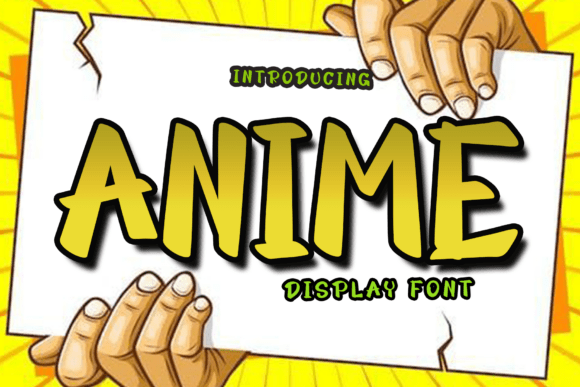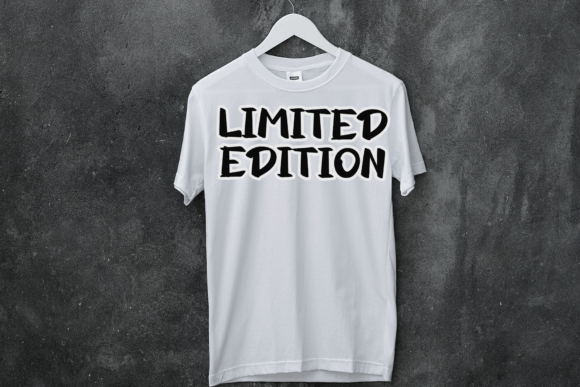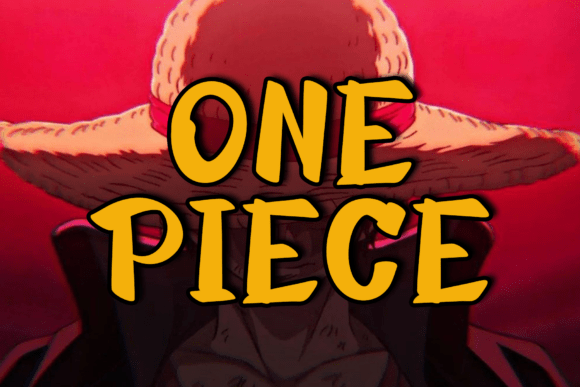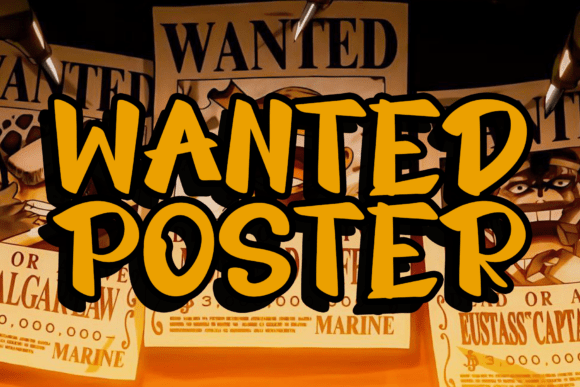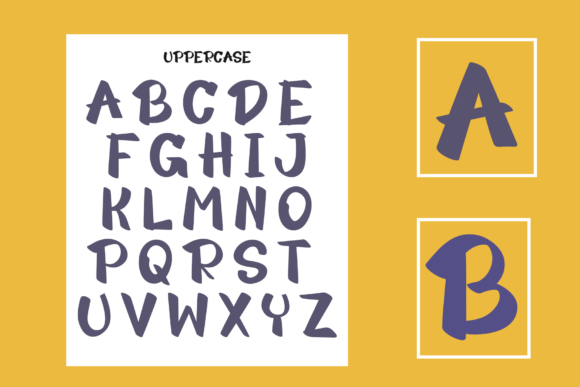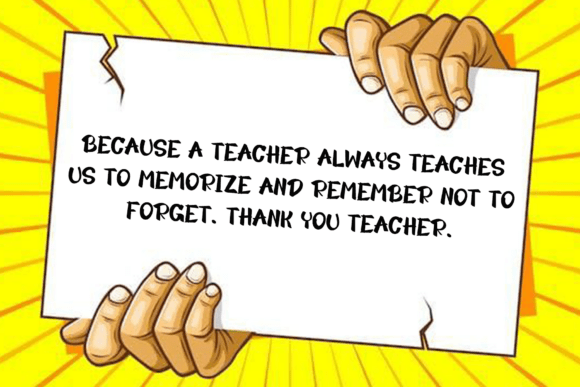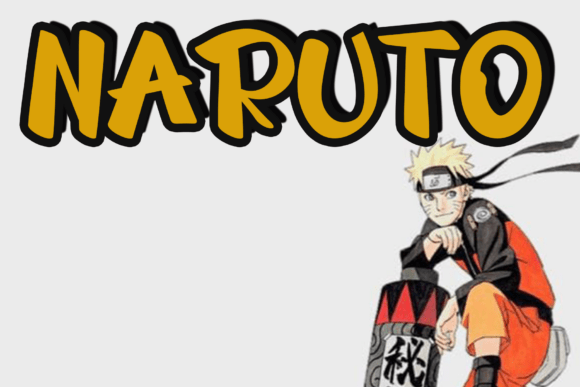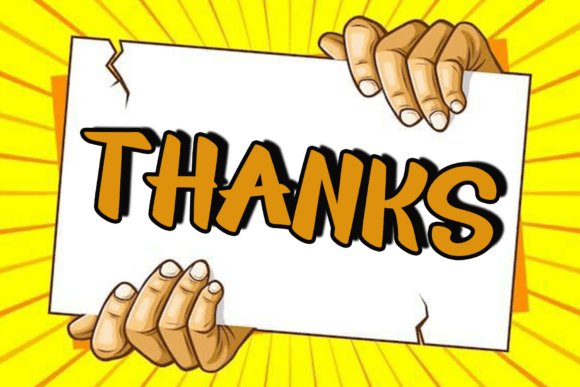
Anime Font
Anime is a charming script font imbued with a sense of freshness and casual elegance. Its fluid strokes and organic lines evoke a laid-back vibe, making it perfect for various design projects. Whether used for branding, invitations, or social media graphics, Anime adds a touch of warmth and personality.